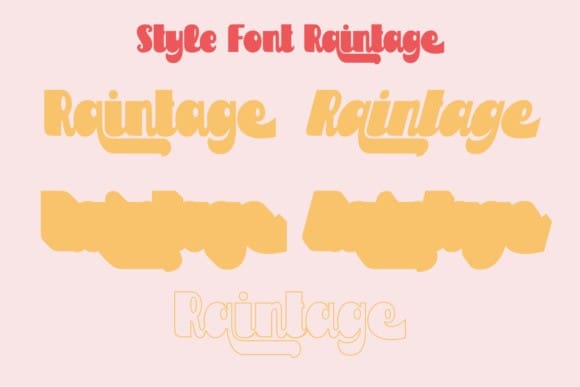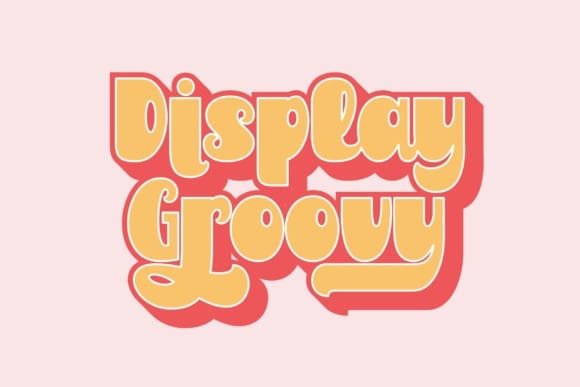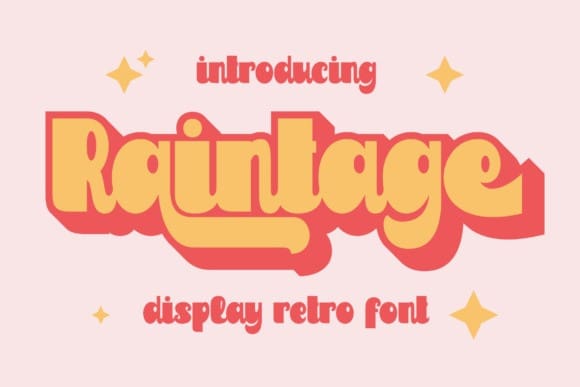
Raintage Retro Font
Raintage Retro Font, feels playfully nostalgic and delivers an incredible vintage retro aesthetic. Use this display font to add that special retro touch to any design idea you can think of!. Masterfully designed to become a true favorite, this font has the potential to bring each of your creative ideas to the highest level!